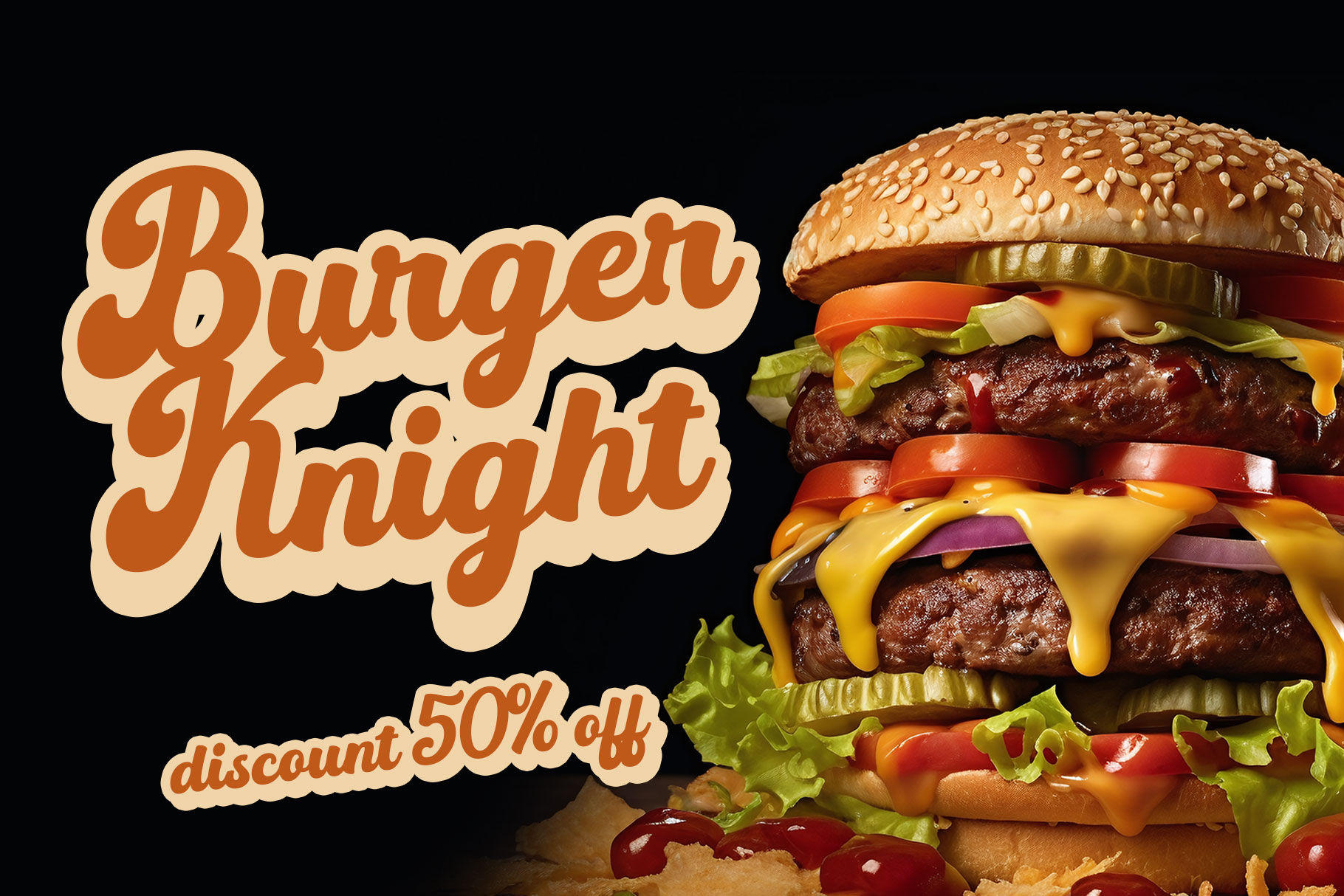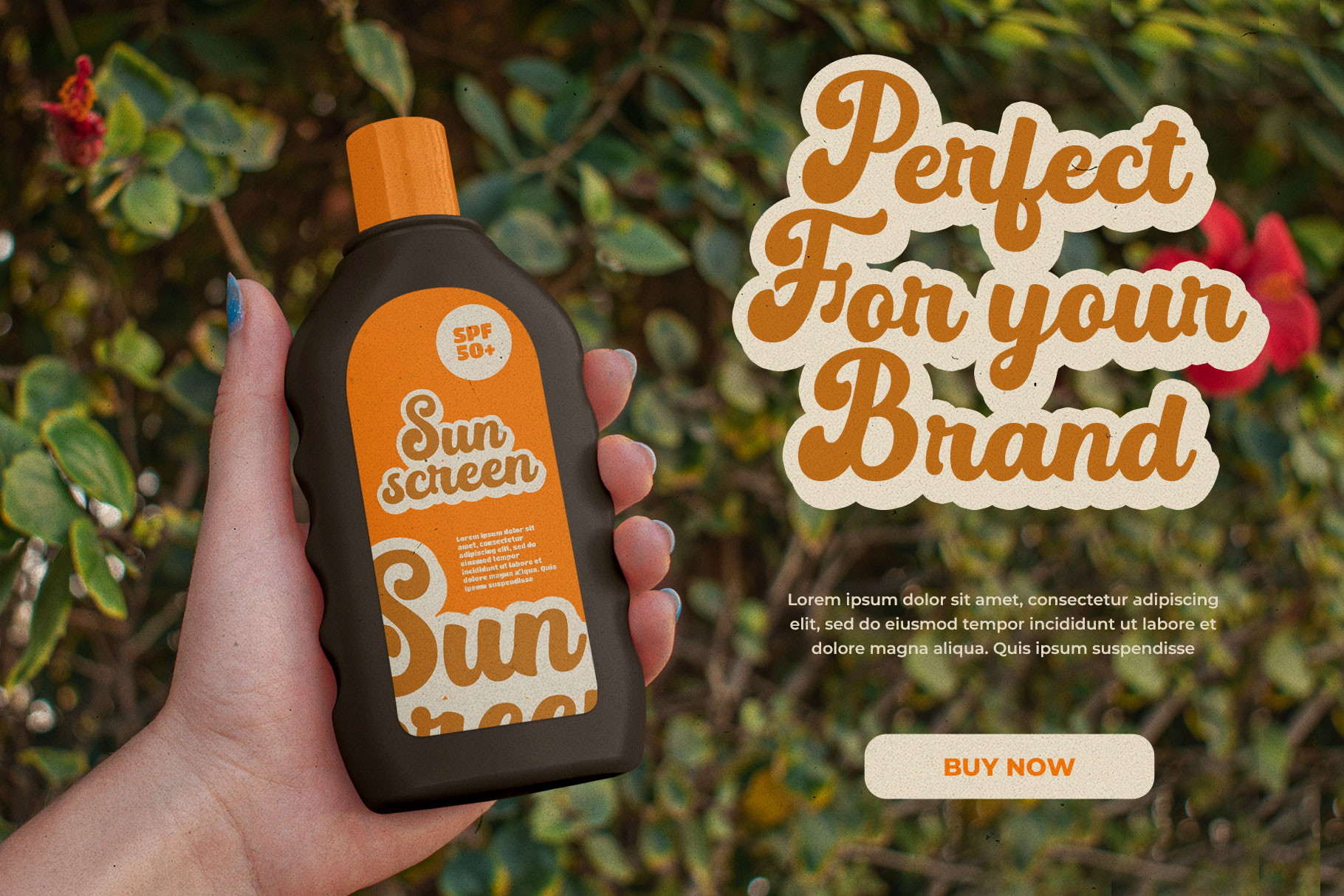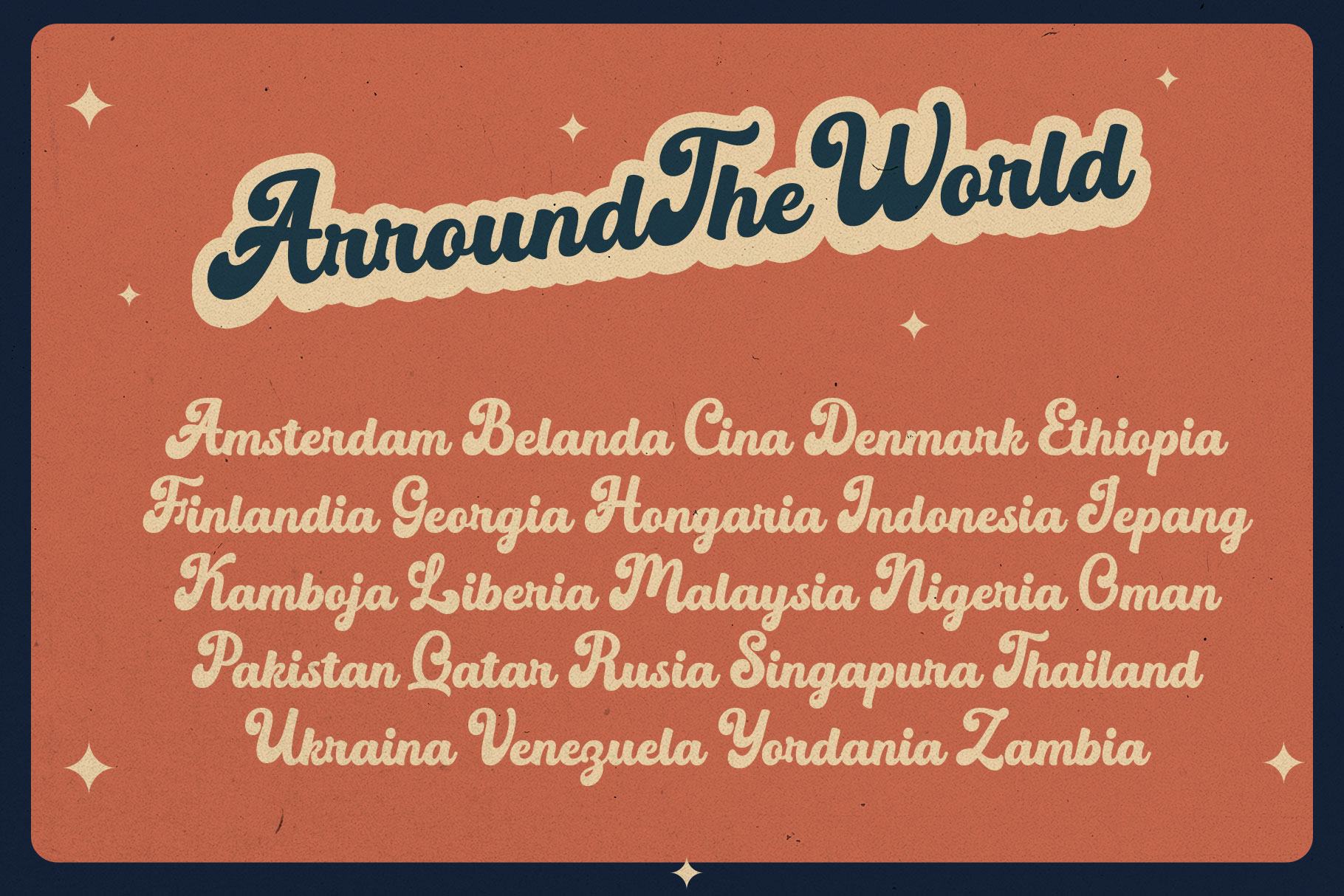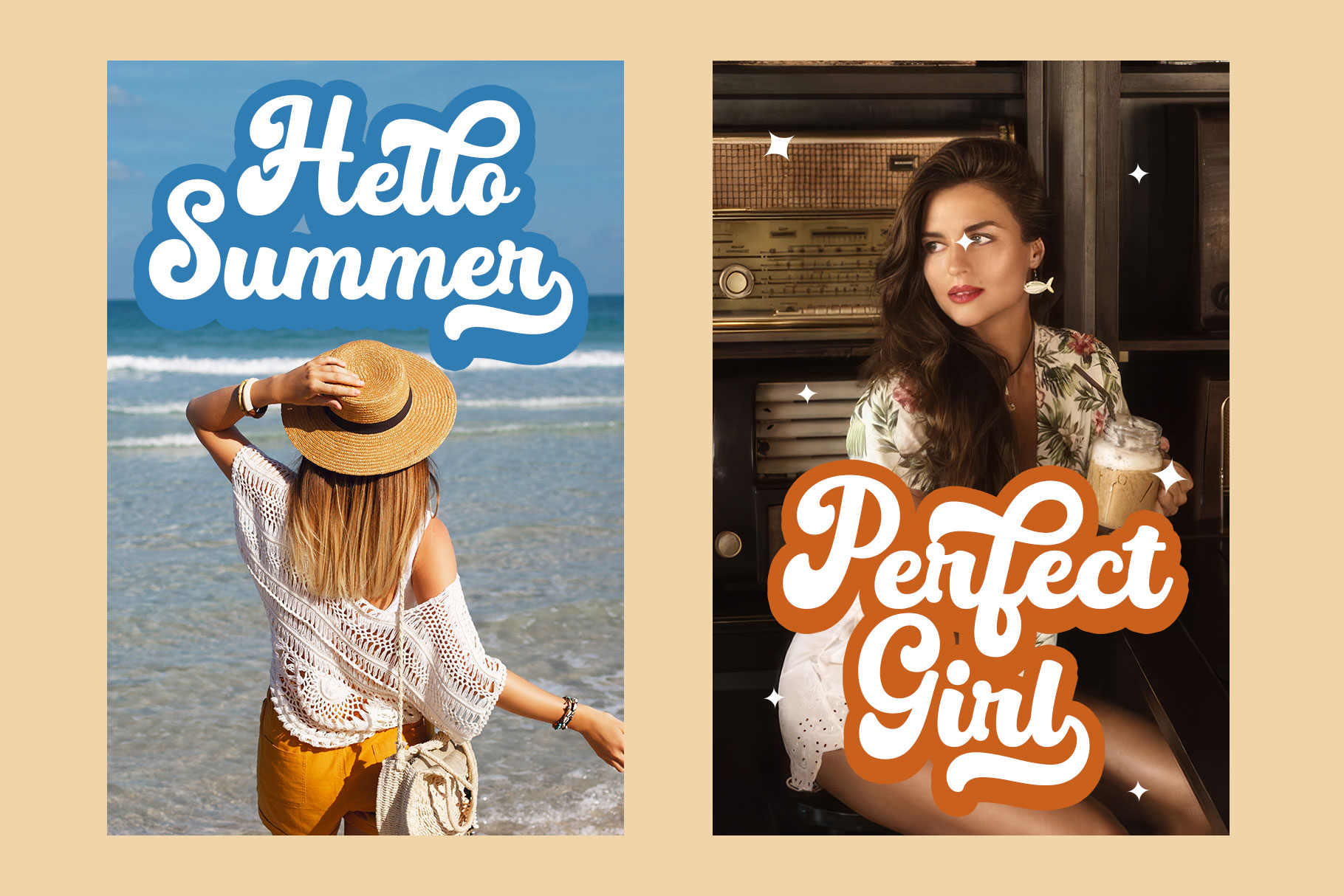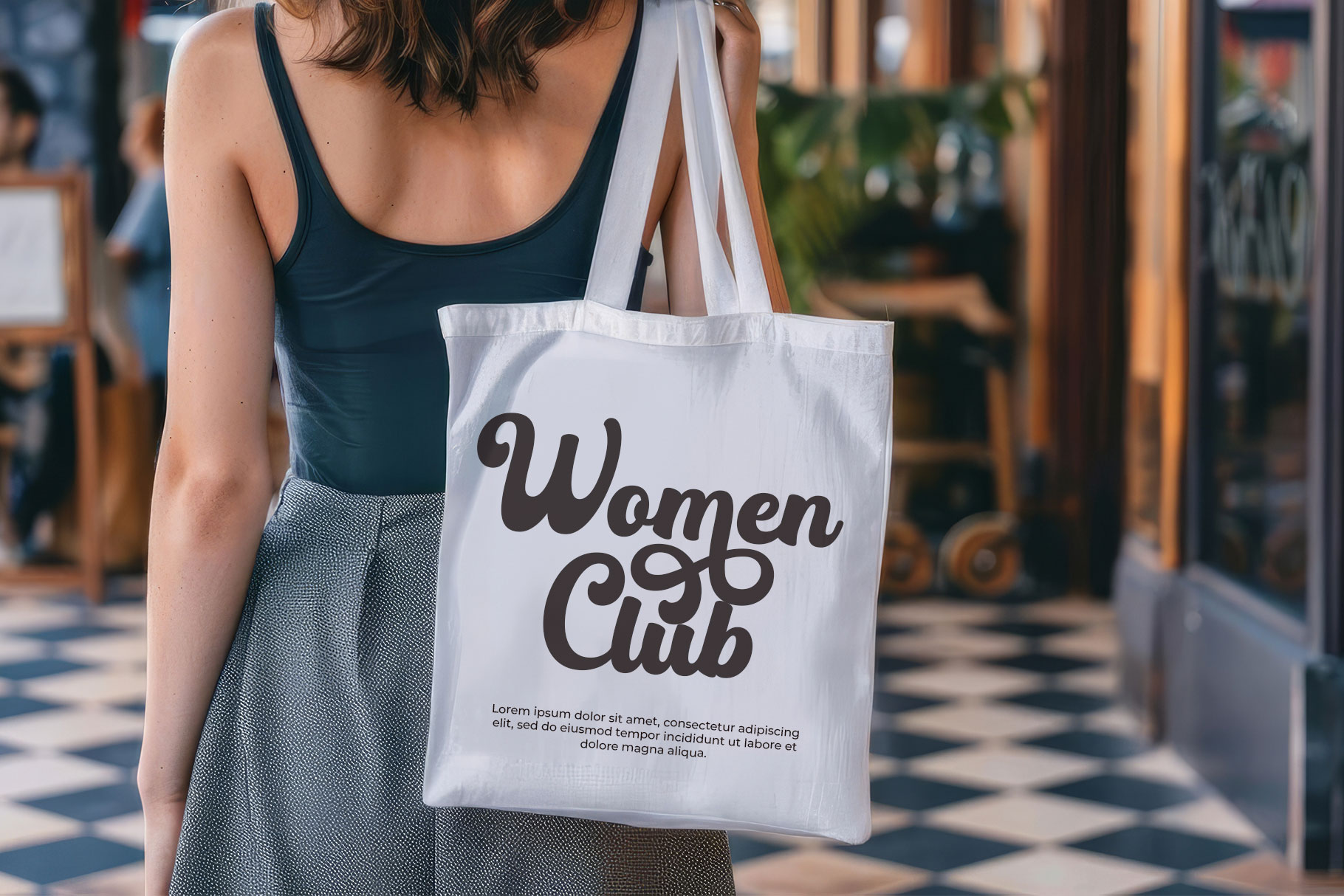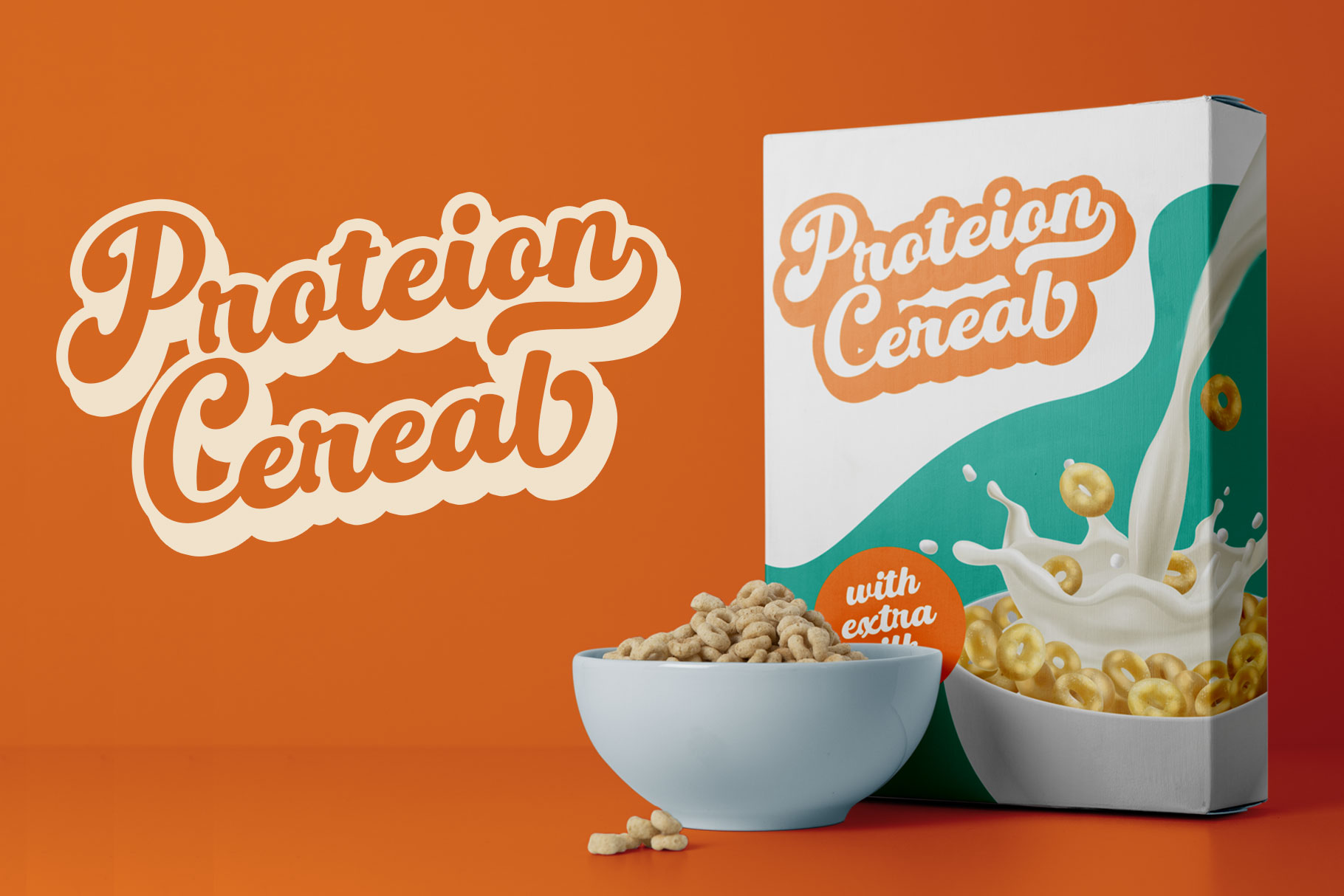
Berdano Groovy Font
Berdano is a groovy font with retro and cheerful vibe look. Berdano is perfectly choice for any creative endeavor, lifestyle design such as logos, title, watermark on photography, cover, branding, display and magazine, wedding event, corporate brand, quotes, album cover, business card, business project and many other design project with retro or groovy taste.